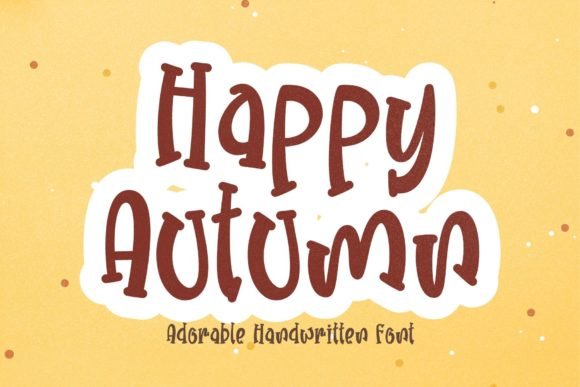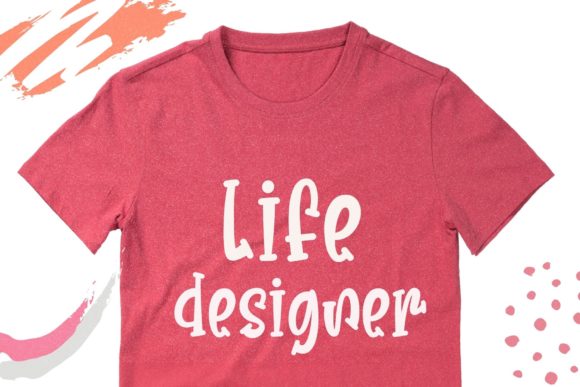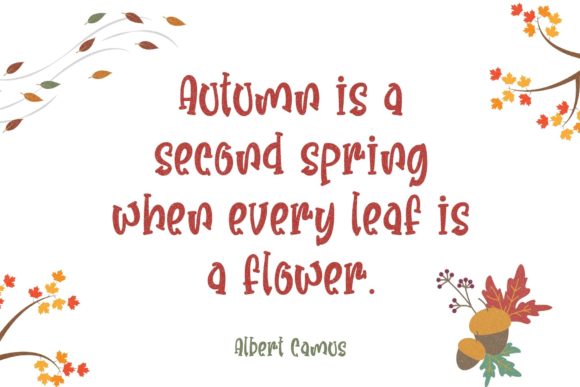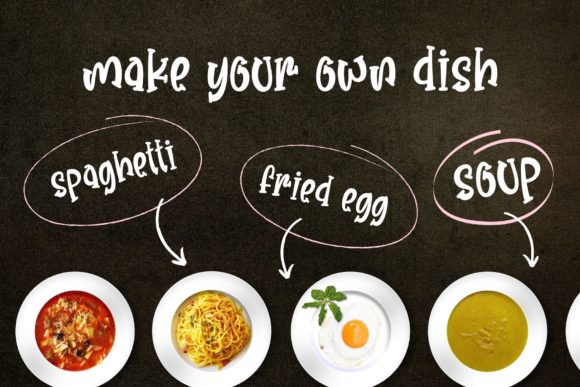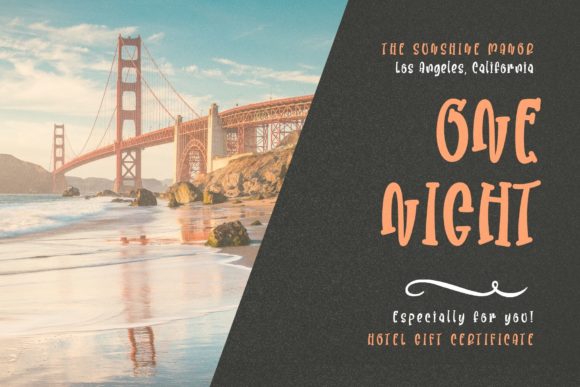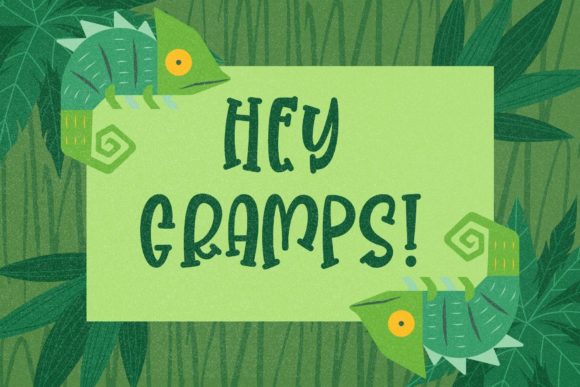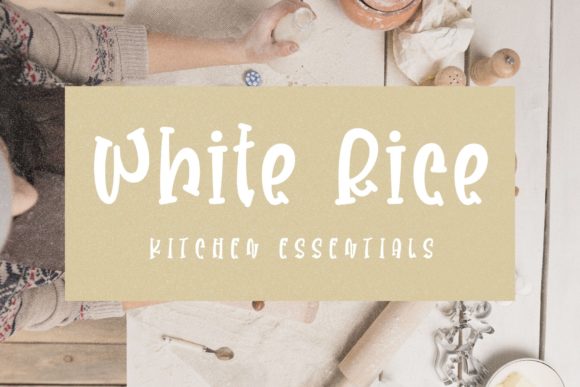
Unlock the Magic of Happy Autumn Font
As a designer, have you ever stumbled upon a font that instantly makes you feel like you’re stepping into a cozy autumn morning, surrounded by crunchy leaves and warm sunlight? For me, that font is the Happy Autumn Font. Its playful, friendly feel is the perfect combination of whimsy and sophistication, making it a versatile tool for any design project.
The Happy Autumn Font is designed to bring a touch of autumnal charm to your creations, whether it’s a children’s design, a t-shirt, or a wedding invitation. Its wide range of applications makes it a valuable addition to any designer’s toolkit, and its friendly feel is sure to make even the most mundane projects come alive. With the Happy Autumn Font, the possibilities are endless, and your creativity is sure to flourish.
Happy Autumn Font Key Features
- Font Family: Happy Autumn Font, a unique and customizable font designed to evoke the feelings of autumn.
- Unique Characteristics: Features a range of autumn-themed elements, including leaves, acorns, and pumpkins, which can be customized to fit individual designs.
- Character Set: Includes a comprehensive set of uppercase and lowercase letters, numbers, and punctuation marks, making it suitable for a wide range of applications.
Happy Autumn Font Review
I recently had the chance to work with the Happy Autumn Font, and I must say it’s a unique and interesting choice. Here are my thoughts.
- The font’s whimsical and playful feel is perfect for fall-themed designs, especially those with a rustic or vintage vibe.
- The font’s varying weights and styles provide a lot of flexibility for designers looking to add some visual interest to their projects.
- The font’s attention to detail, such as the custom-designed icons and flourishes, adds a touch of personality to designs.
- The font’s readability can be a bit of a concern, especially at smaller sizes. Some characters may blend together or be difficult to distinguish.
- The font’s design is quite specific to the fall season, which may limit its use in other contexts or designs.
Overall, I think the Happy Autumn Font is a great choice for designers looking to add some seasonal flair to their projects. While it may have some limitations, its unique design and flexibility make it a great option for the right project.
For optimal results, use Happy Autumn Font in combination with autumn-themed colors and imagery, such as orange, yellow, and red leaves, acorns, and pumpkins.
Experiment with different font sizes, colors, and styles to create a cohesive and visually appealing design.
Happy Autumn Font is ideal for:
Designing autumn-themed invitations, flyers, and brochures.
Creating seasonal social media graphics and advertisements.
Adding a touch of autumn charm to wedding invitations, menus, and other event materials.